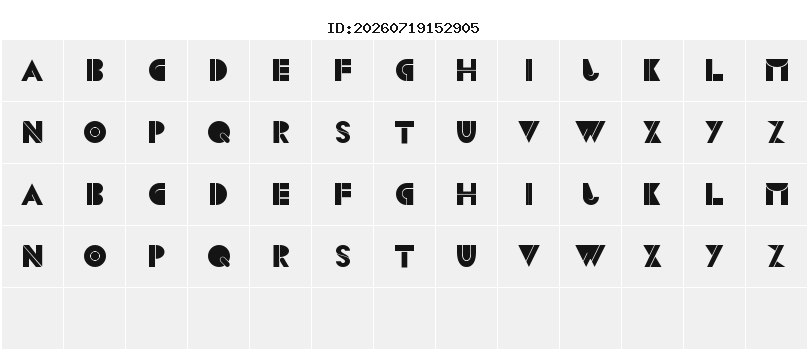
CS Blocks.ttf is a modern, elegant sans-serif font designed for ultimate readability and visual harmony. Perfect for branding, headlines, web design, and print materials.